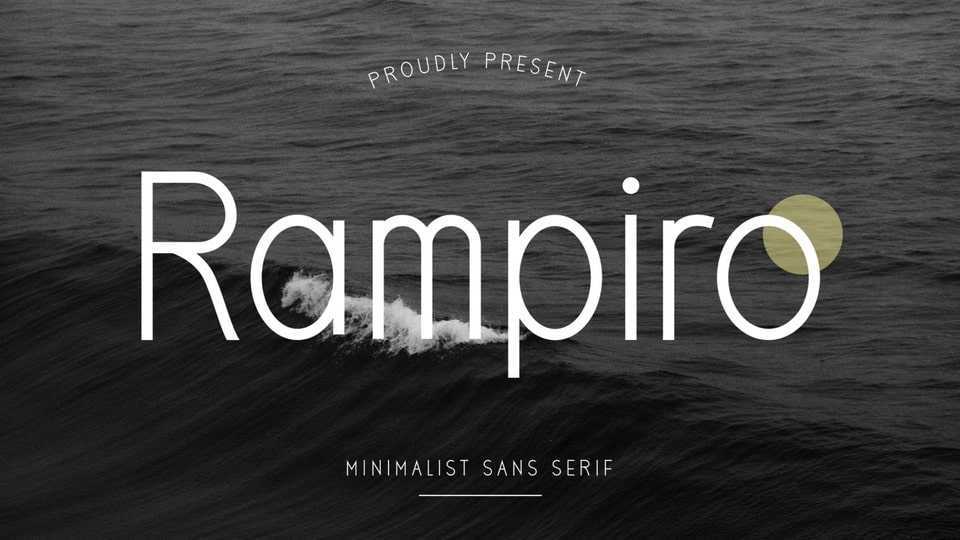
Download Rampiro font, a minimalist sans serif typeface called, perfect for branding projects, logos, social media posts, advertisements, product packaging.